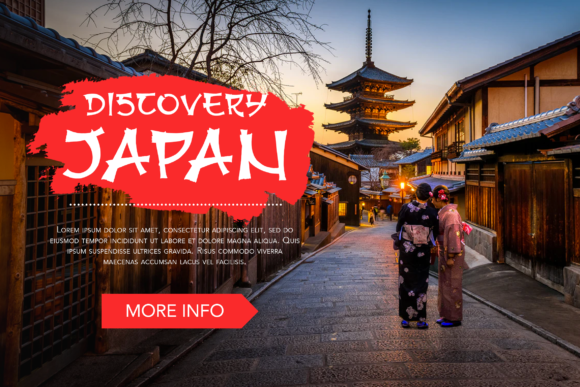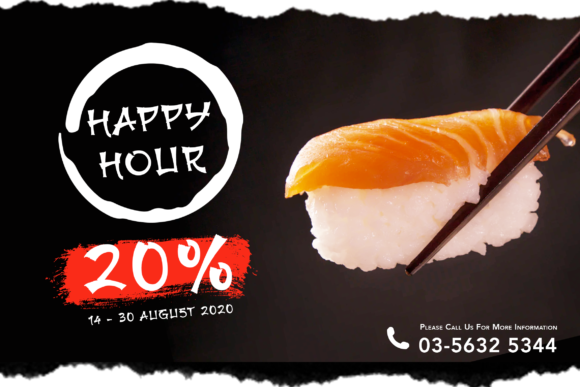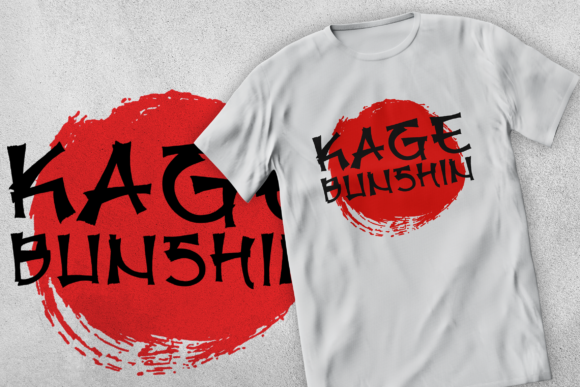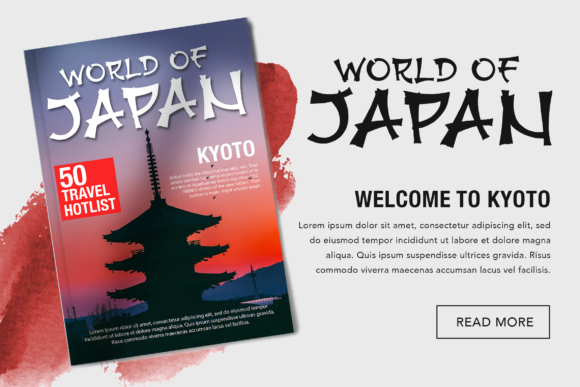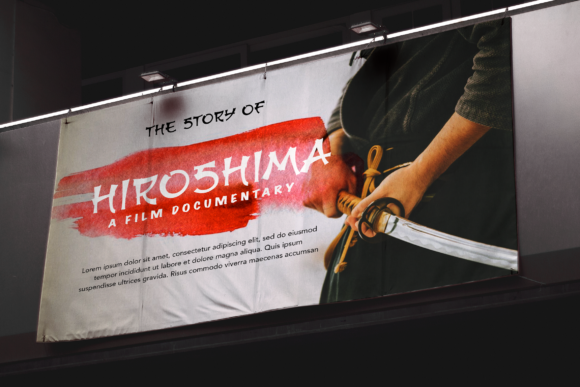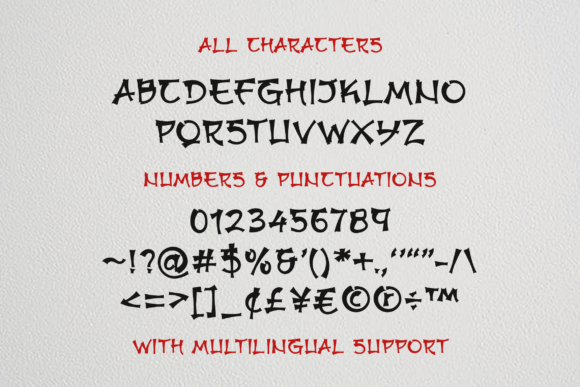
Introduction to Hirokawa Font
As a designer, have you ever been stuck on a creative project, searching for that one special element to elevate it to the next level? You know, that elusive font that adds a touch of magic to your design? I’ve been there too, and I’m excited to share with you a game-changer – the Hirokawa Font. This stunning Japanese-inspired display font is the perfect solution to add a bold and genuine touch to your creations.
With its daring and unique style, the Hirokawa Font is sure to make your projects stand out. Whether you’re working on a high-quality design for a free download or a commercial project, this font is a valuable resource that will take your work to new heights. And the best part? You can use it on any background, from transparent to busy patterns, and it will always shine through with its clarity and sophistication.
Key Features of Hirokawa Font
- Unique Hand-Drawn Design: The Hirokawa Font boasts a distinctive hand-drawn aesthetic, making it an ideal choice for creative projects that require a personal touch.
Honest Review: Hirokawa Font
I recently had the chance to work with the Hirokawa Font, and I must say, it’s been a game-changer for my creative projects. ✨
- The high-quality design of the font is immediately noticeable, making it a great addition to any project.
- I love how the font has a transparent background, which makes it incredibly versatile and easy to use.
However, there are a few limitations to keep in mind. ⚠️
- The font may not be as extensive as some other options on the market, which could limit its use in certain situations.
- Some users may find the font’s unique style to be a bit too bold or overpowering.
Overall, I’m really impressed with the Hirokawa Font. It’s a high-quality design resource that’s perfect for creative projects where a unique and eye-catching font is needed. The transparent background and free download option make it incredibly easy to use and experiment with. While it may have some limitations, I think it’s definitely worth considering for any project where a high-quality font is required.
Hirokawa Font is a high-quality design resource that offers a unique and creative style. With its transparent background, this font is perfect for any project that requires a touch of elegance.
To get the most out of Hirokawa Font, use it in combination with other design elements such as images and graphics. This will help create a visually appealing and creative design.
Hirokawa Font is commonly used in various design projects such as logos, business cards, brochures, and social media graphics. It’s also a great resource for designers who want to create a unique and creative style for their projects.